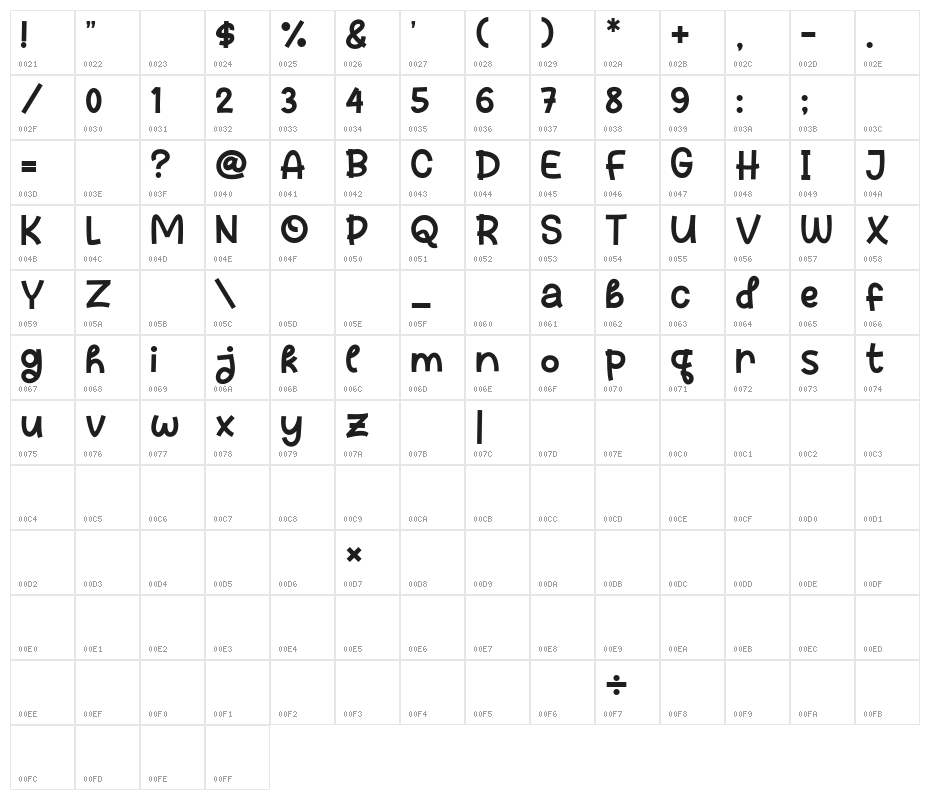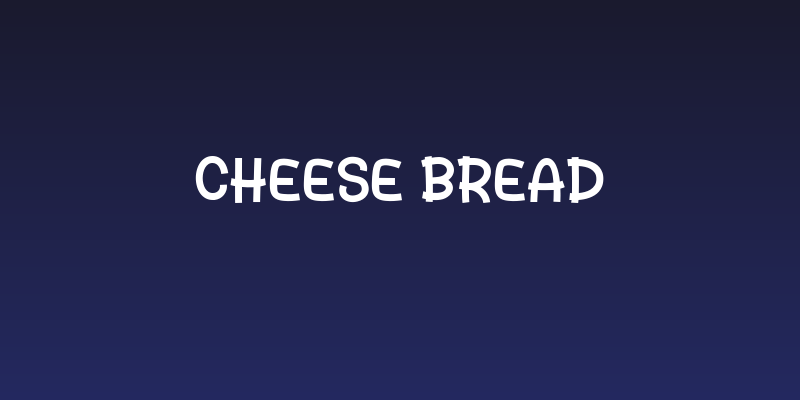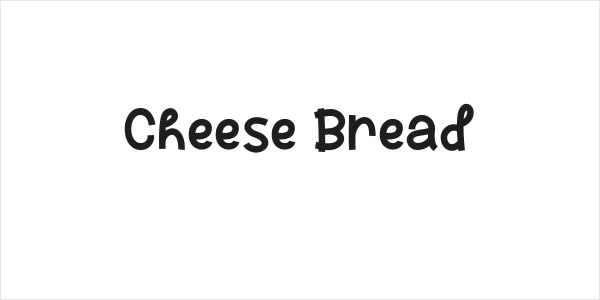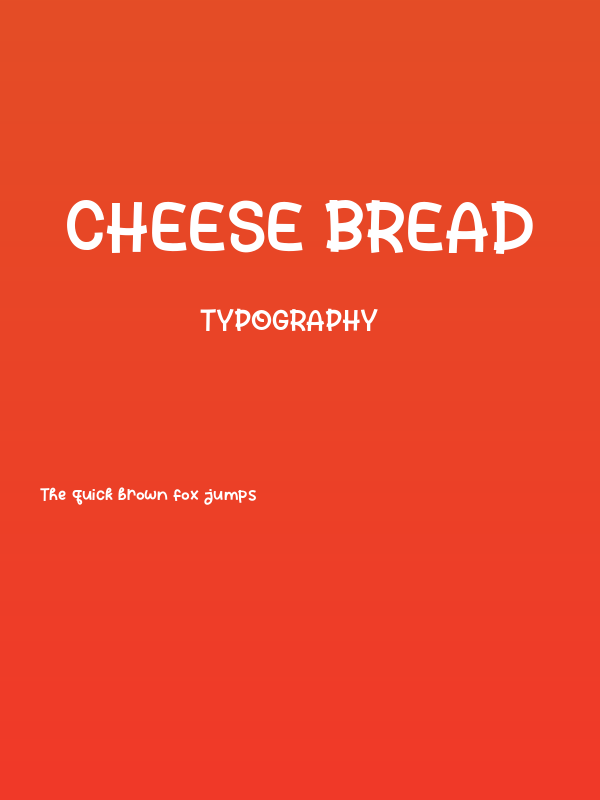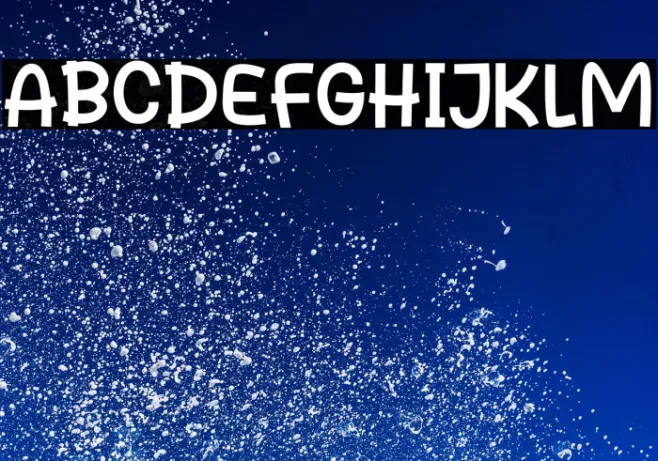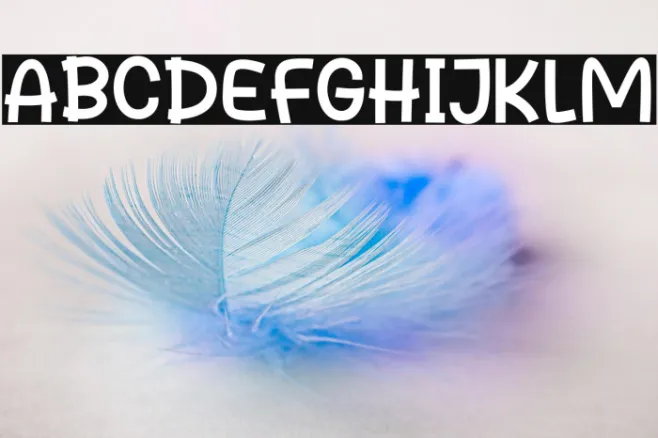
Cheese Bread Font
Cheese Bread Description
This playful and whimsical font features bold, rounded characters with a hand-drawn feel. The uppercase letters are slightly irregular, adding to the casual and friendly appearance. The lowercase letters maintain a consistent style, with some characters like 'g' and 'y' having unique, looping descenders. The numerals are bold and easy to read, matching the overall style of the alphabet. Special characters are included, maintaining the same playful aesthetic. This font is ideal for projects that require a fun and informal touch.
| Proposed Projects | Ideal for children's books, playful branding, greeting cards, and informal event invitations. |